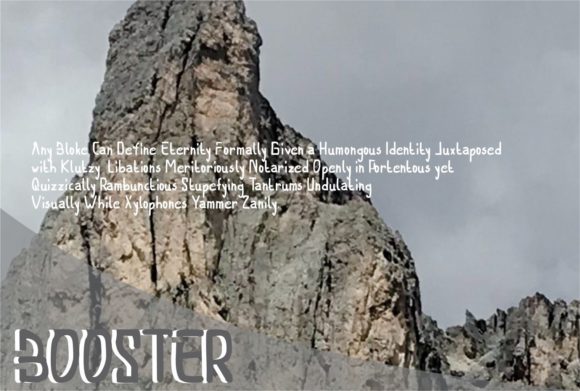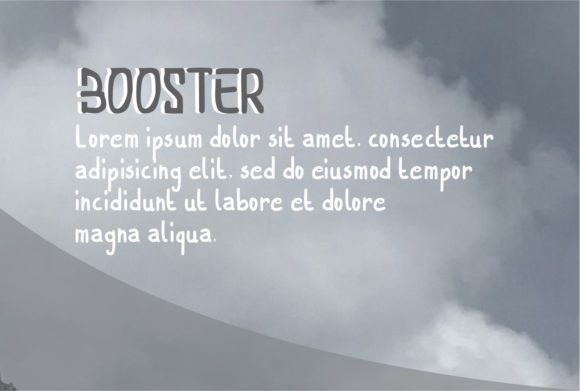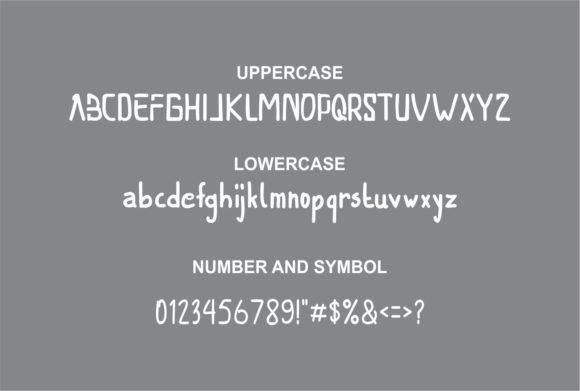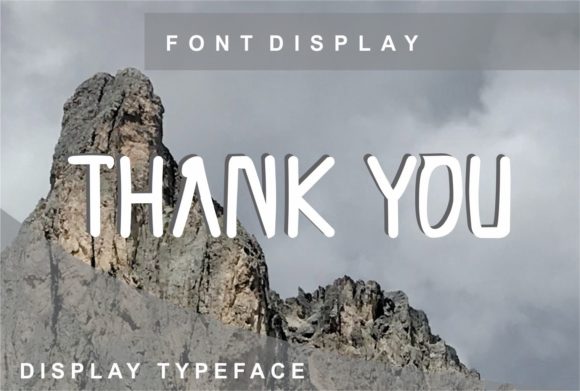
Enter the Booster Font, a trendy display font that adapts to your every need. With its versatility and modern flair, this font is sure to become your go-to companion for any creative project. Whether you’re designing a logo, a social media post, or a full-fledged marketing campaign, the Booster Font has the potential to take your work to the next level.
Key Features of Booster Font
- Unique Characteristics: Booster Font features a unique blend of modern and classic elements, with a focus on clean lines, geometric shapes, and subtle texture, making it an ideal choice for modern designs.
Booster Font Review
Overall, I think Booster Font is a decent choice for digital designers, but it has its limitations. ✨ One thing that works well is its modern and sleek design, which is perfect for creating a contemporary look for your website or application. The font is highly customizable, allowing you to adjust the weight, spacing, and even the ligatures to suit your design needs.
Another advantage of Booster Font is its wide range of languages supported, making it a great option for multilingual designs. Additionally, the font is highly legible, even at smaller font sizes, which is a must-have for any digital design project.
- Modern and sleek design
- Highly customizable
- Wide range of languages supported
- Highly legible
- May not be suitable for traditional or classic designs
- Some users may find the font too bold or overpowering
- Not as versatile as some other fonts in the market
In conclusion, while Booster Font is not perfect, it is a solid choice for digital designers who want a modern and customizable font. However, it may not be the best option for traditional or classic designs, or for designers who prefer a more subtle look.
Booster Font is ideal for creating attention-grabbing headings, titles, and captions. Use it to highlight important information or create a sense of urgency. It’s also great for designing digital products, such as mobile apps and websites, where a bold and modern look is desired.